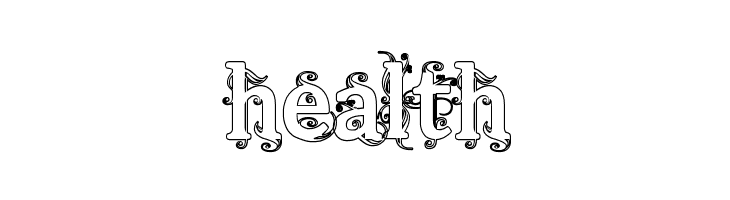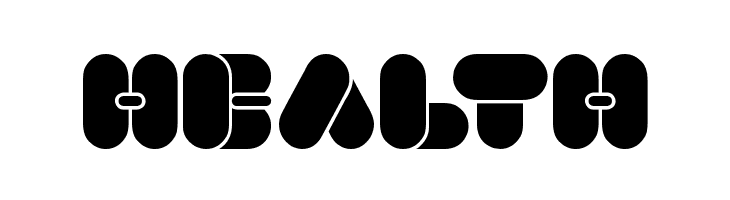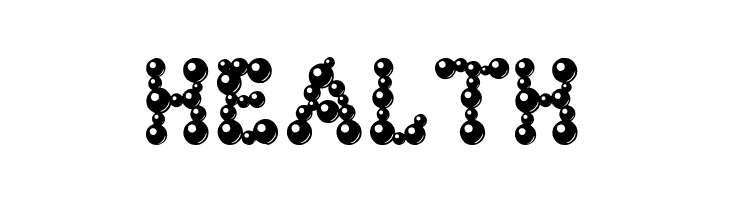
( Woodcutter - woodcutter Manero - www.woodcutter.es )
A bold, decorative font with cross-like embellishments and a cohesive design.
( Jérôme Delage )
A distressed, chaotic font with sharp, jagged edges and a rebellious aesthetic.
( Elaine Biss - babstype.com )
A whimsical and ornate font with decorative swirls and curls.
( Fonts by Peter Wiegel - www.peter-wiegel.de )
A bold, geometric font with an industrial and modern aesthetic.
( Fonts by Peter Wiegel - www.peter-wiegel.de )
A bold, shadowed font with a three-dimensional geometric style.
( Fonts by Peter Wiegel - www.peter-wiegel.de )
A bold, outlined font with a modern, geometric style.
A bold, distressed font with a cracked texture for an edgy look.
A bold, distressed font with a grunge texture for an edgy appearance.
A bold, distressed font with a textured, grunge-inspired style.
A geometric and futuristic font with angular, linear characters.
A bold, flowing script font with interconnected characters and smooth curves.
A vintage typewriter-style font with a textured, elegant appearance.
A bold Gothic font with sharp, angular lines and intricate serifs.
A classic Gothic-style font with ornate, medieval-inspired letterforms.
A classic Gothic font with sharp serifs and medium contrast, ideal for decorative use.
A Gothic-style font with sharp, angular lines and intricate detailing.
A bold, condensed font with high contrast and elongated characters.
A bold, playful font with whimsical lowercase letters and thick strokes.
A bold, distressed font with a corroded, industrial texture.
A dynamic handwritten font with fluid strokes and playful elegance.
( Botond Bokor - botondbokor.com )
A sketch-like, hand-drawn decorative font with an artistic and textured appearance.
( Fonts by Gais Zaelani )
Playful handwritten script font.